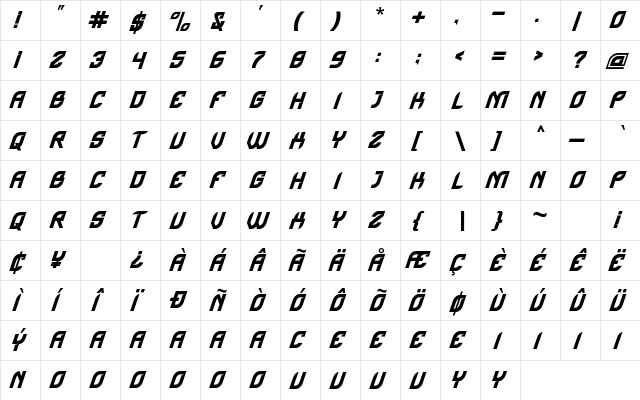
Ancent Regular
| Foundry | HansCo |
| Designer | Burhan Afif |
Design Context for Ancent Typeface
Ancent is a composed and adaptable typeface that performs quietly and consistently across a wide range of design contexts.